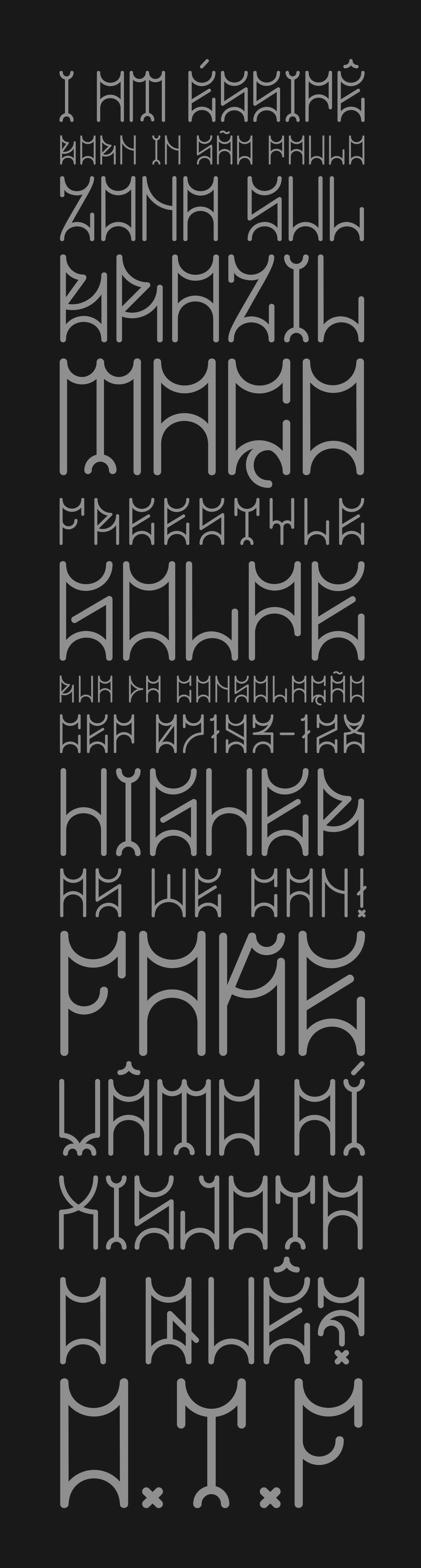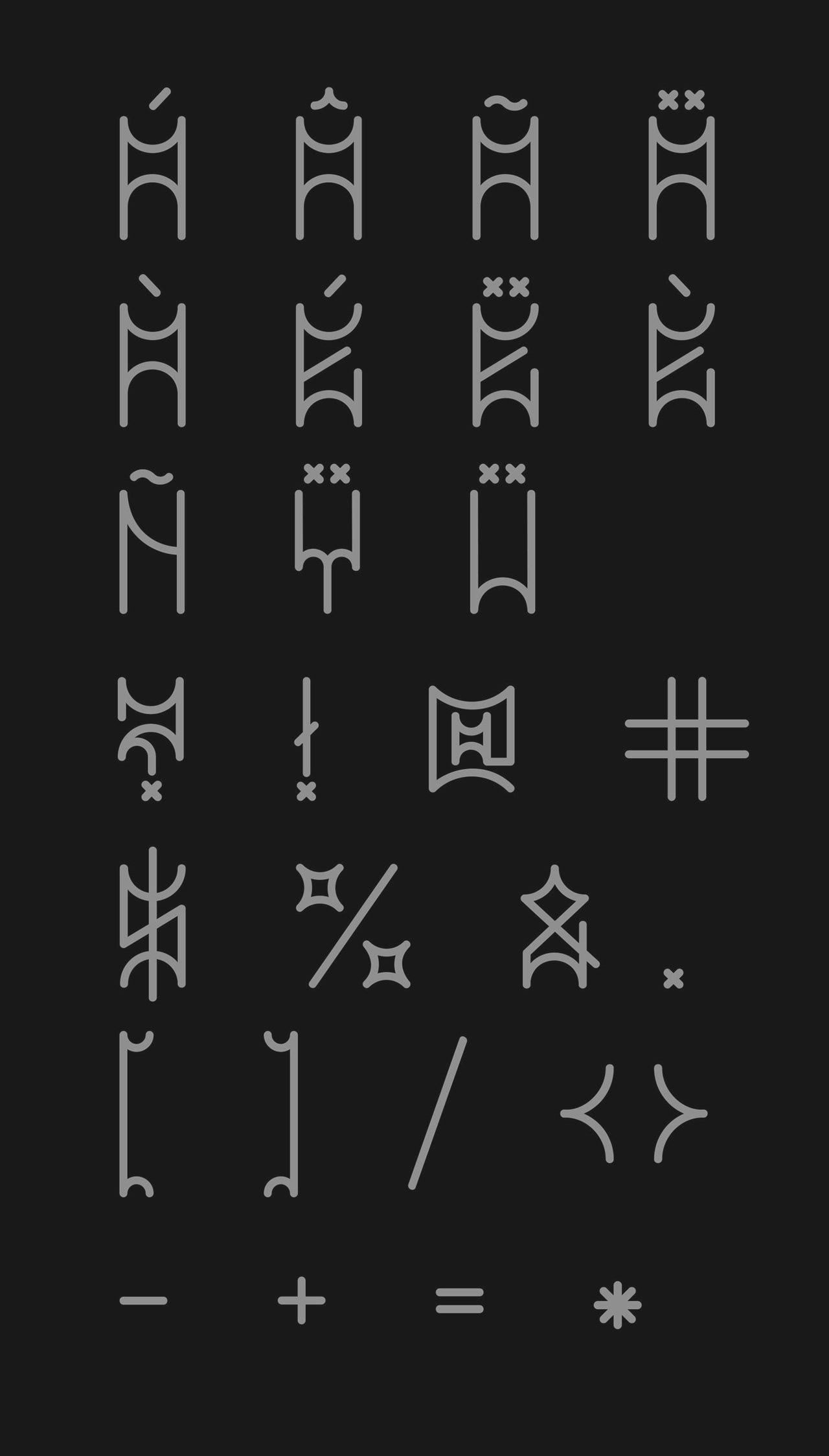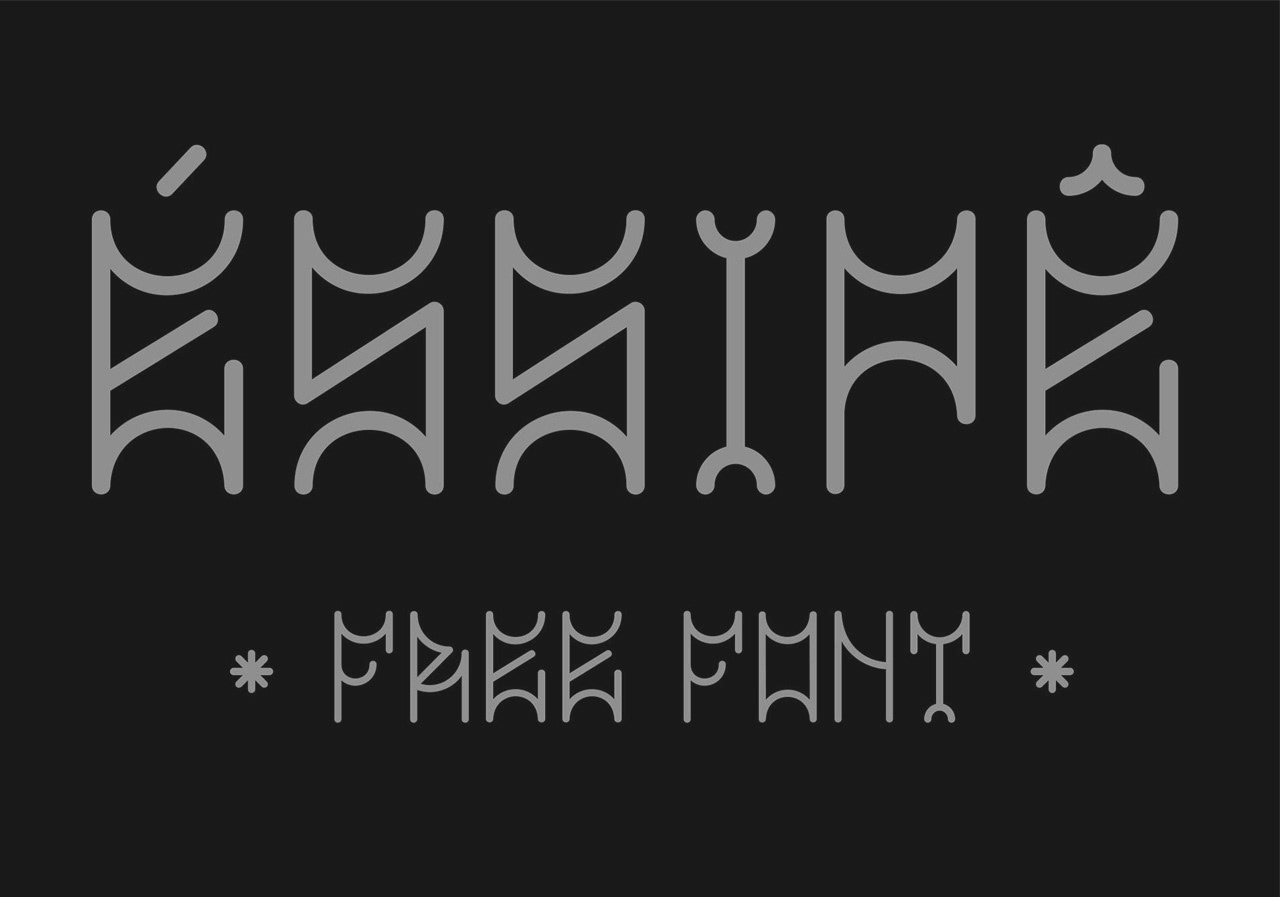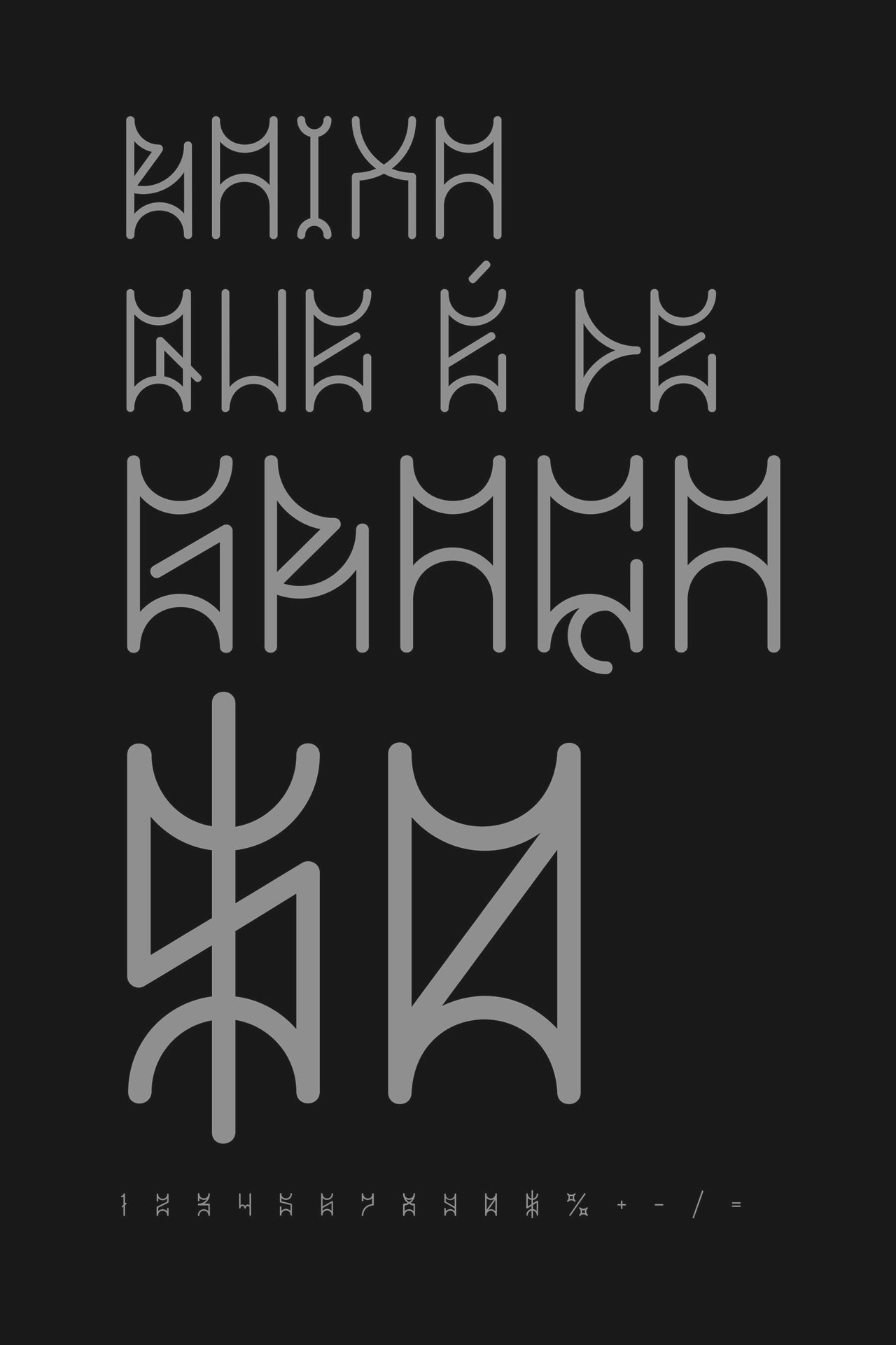
Éssipê
A font inspired on São Paulo's city world famous tag style, best known as 'pixo' or 'tag reto' (straight tag).
Uma fonte inspirada no estilo mundialmente famoso de pixação de São Paulo, conhecido como 'pixo' ou 'tag reto'.